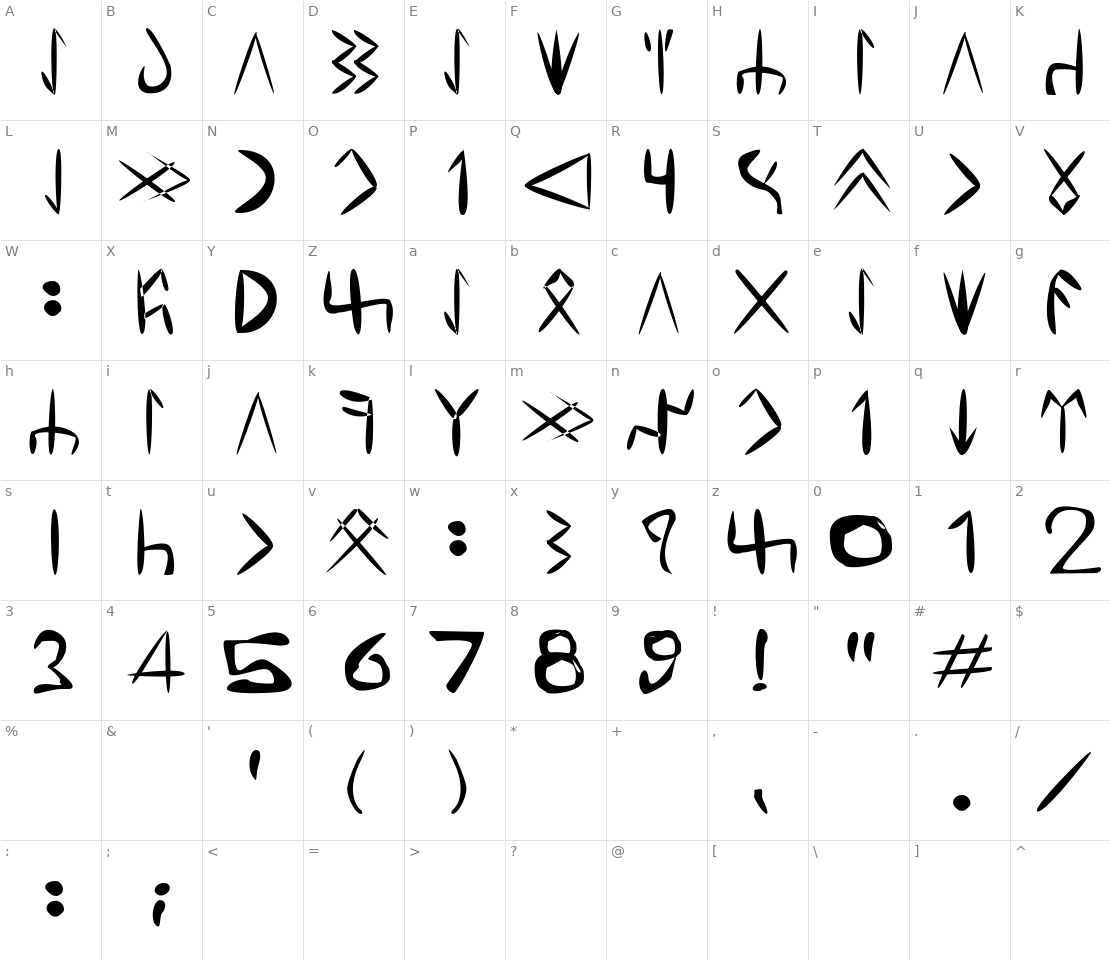
Tuzluca TDD
by caferuluc
Tuzluca TDD is a decorative fantasy face from caferuluc that draws on the visual language of ancient Anatolian and cuneiform script traditions. The letterforms read more as symbols than conventional typography, with angular, carved-looking strokes that feel like they belong etched into stone or clay tablets. Strictly ornamental, it works for mystical or historical themed design, chapter headers, or anywhere you need letterforms that carry a sense of deep antiquity.